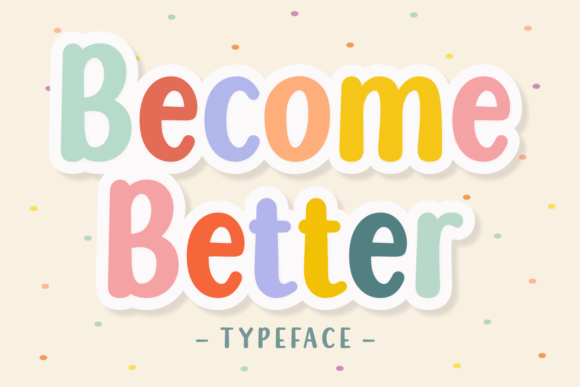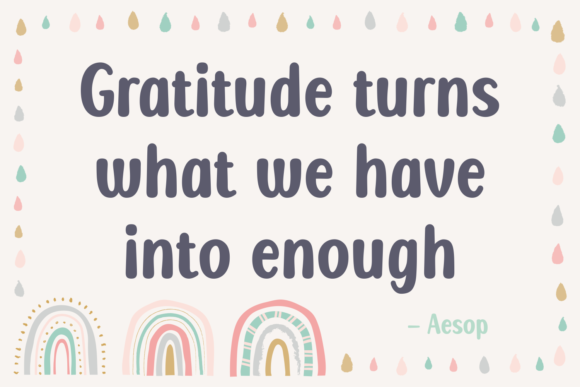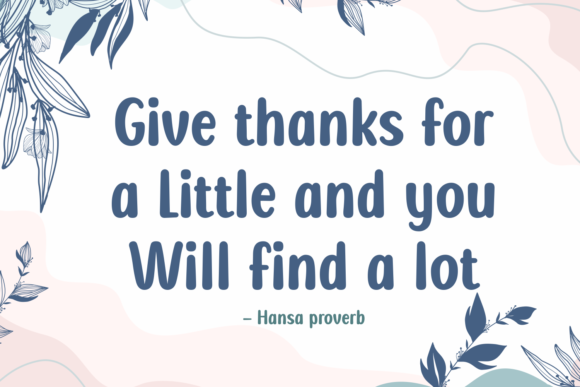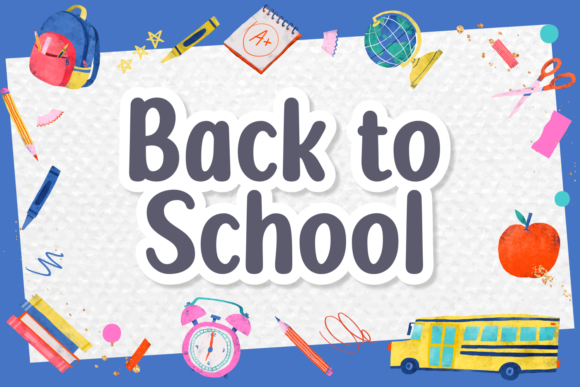
Have you ever stared at a blank page, trying to come up with the perfect font to bring your creative vision to life? We’ve all been there. But what if you could infuse your designs with a playful, handwritten charm that makes them truly stand out? That’s where the Become Better Font comes in – a simple, quirky, and adaptable font that’s perfect for adding a relaxed touch to your creations.
This font is a designer’s best friend when it comes to crafting unique and engaging content. Its informal style and casual vibe make it an ideal choice for social media graphics, blog posts, and even branding materials. Whether you’re looking to create a laid-back atmosphere or simply want to add some personality to your designs, the Become Better Font is a valuable addition to your toolkit.
Become Better Font Key Features
- Font Family: Become Better Font is a sans-serif font family designed for readability and versatility. It comes in 6 weights (Light, Regular, Medium, SemiBold, Bold, and Black).
- Unique Characteristics: Become Better Font features a unique, rounded edge design that makes it easy to read, even at small font sizes. Its open shapes also make it perfect for use in digital interfaces and user-friendly designs.
Become Better Font Review
I recently had the chance to work with the “Become Better Font” and I must say it’s a unique and interesting font. ✨ One of the things that works well is its versatility – it can be used for a wide range of projects, from body text to headlines, and even for decorative elements. The font’s bold and modern design makes it perfect for creating attention-grabbing headlines, and its clean lines and minimalistic style make it suitable for body text.
Another thing that I like about “Become Better Font” is its customizability. ✨ It comes with a wide range of weights and styles, making it easy to adjust the font to fit your project’s specific needs. Additionally, the font is fully scalable, so you can use it for small text or large headlines without any issues.
However, I did encounter some limitations. ⚠️ One of the main issues is that the font is not as legible as some other fonts at small sizes. Additionally, the font’s bold weight can be a bit too aggressive for some projects, making it difficult to read.
- Legibility issues at small sizes
- Bold weight can be too aggressive
Overall, I think “Become Better Font” is a great addition to any designer’s toolkit. While it has some limitations, its versatility and customizability make it a valuable resource for creating unique and attention-grabbing designs.
Getting the Most Out of Become Better Font
Here are some tips to get the most out of Become Better Font:
- Use it for headings and titles to add a touch of elegance.
- Combine Become Better Font with other fonts to create a unique and personalized style.
Become Better Font is ideal for:
- Designing business cards and resumes.
- Creating social media graphics and advertisements.
- Developing branding materials and logos.